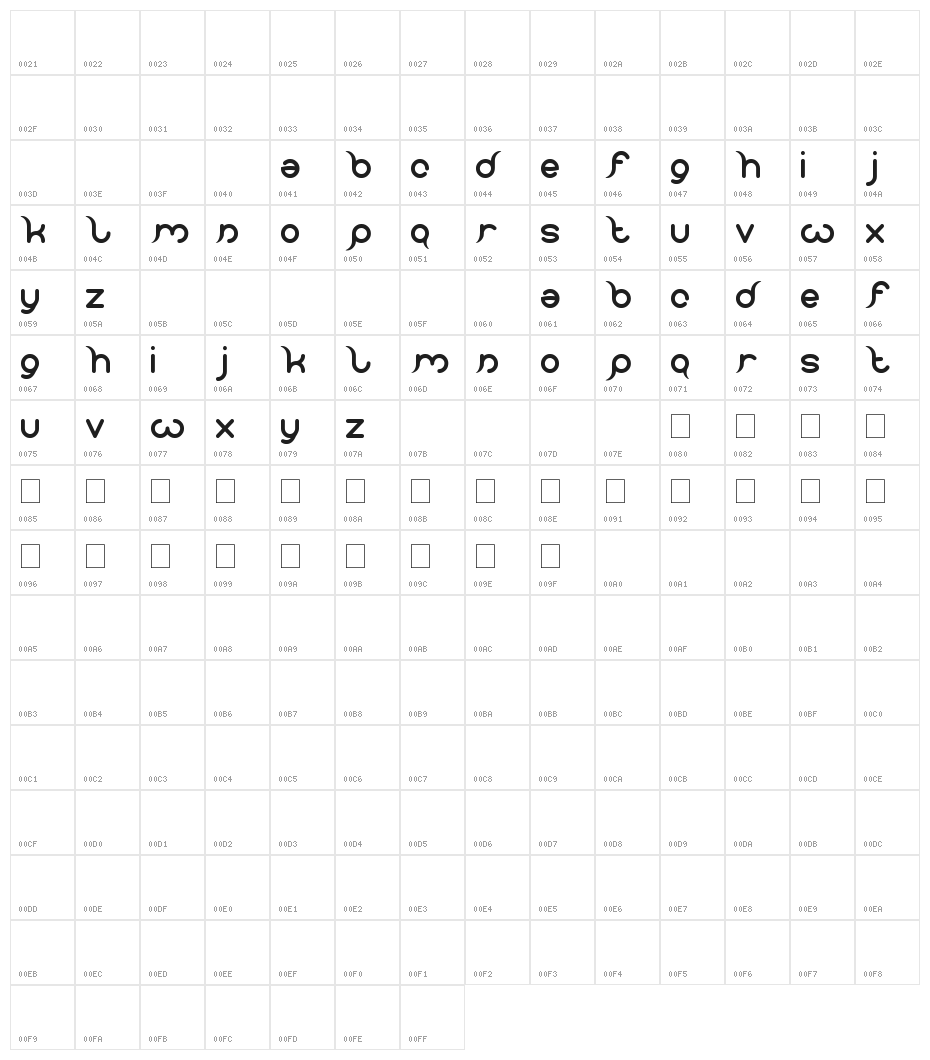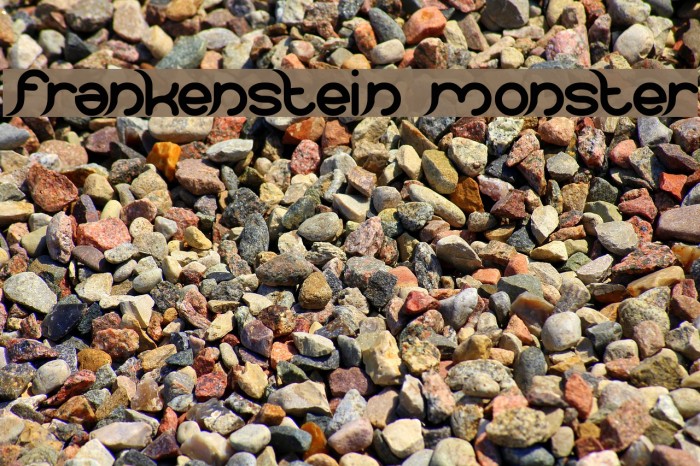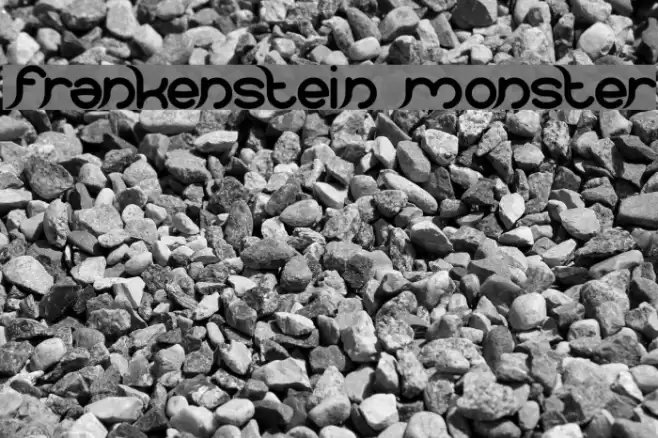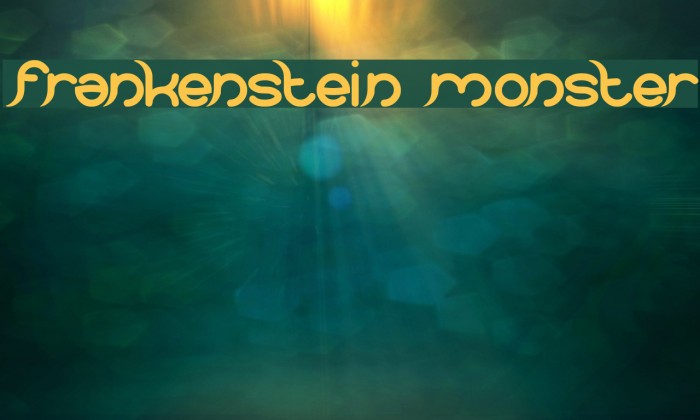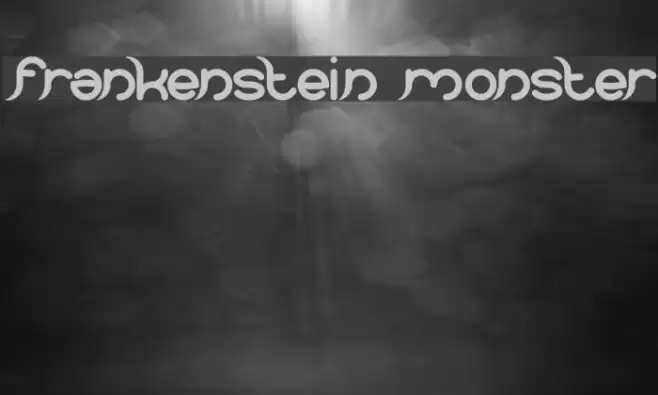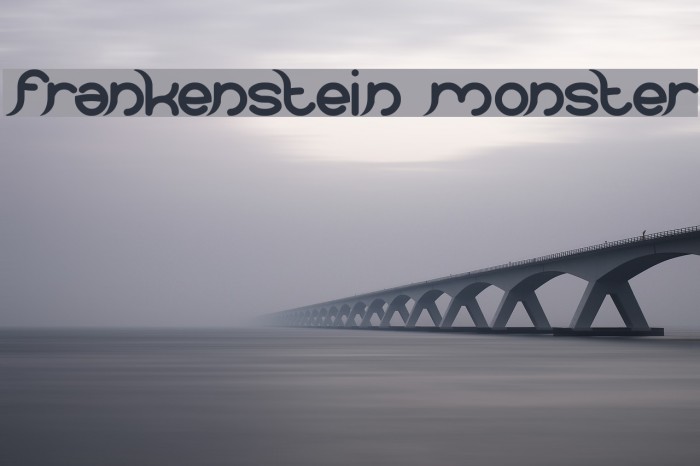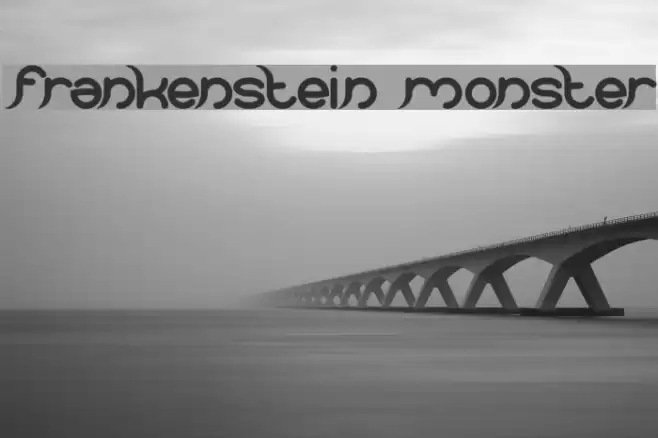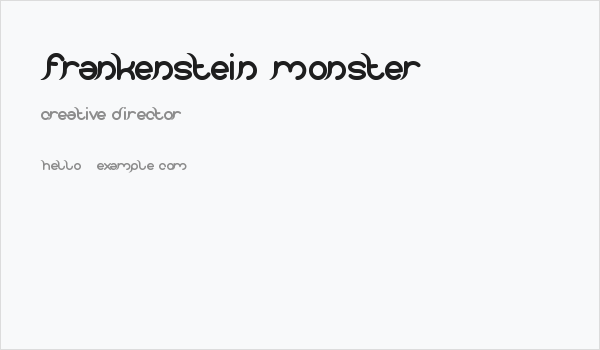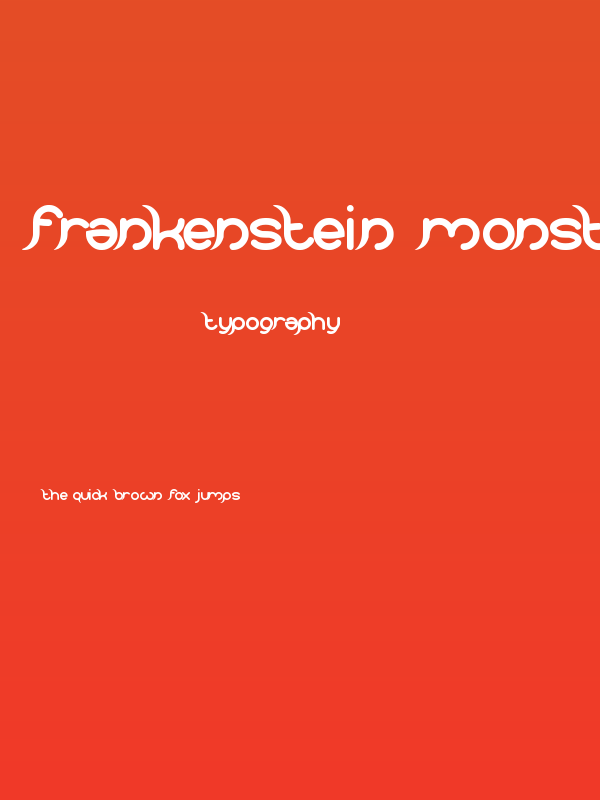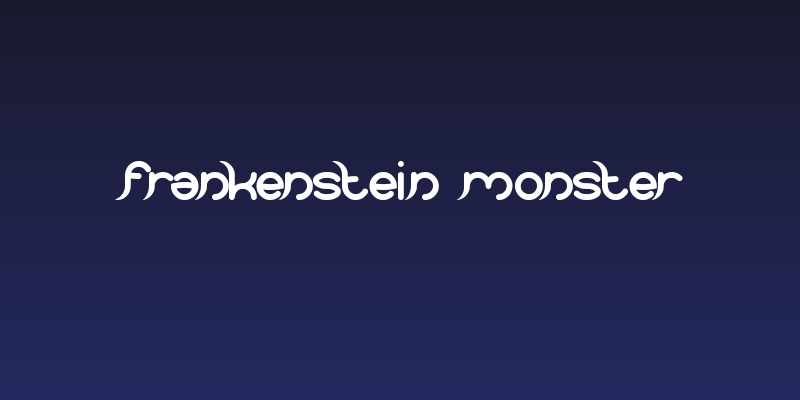
frankenstein monster Font
frankenstein monster Description
This font features a unique and playful design with a modern twist. The characters are rounded and bold, with distinctive curves and hooks that give it a whimsical and slightly futuristic appearance. The strokes are consistent in thickness, providing a uniform look across all characters. The lowercase letters have a quirky charm, with some characters featuring extended tails or loops that add to the font's playful nature. The overall style is eye-catching and suitable for creative projects that require a fun and engaging typeface.
| Overall Style | Modern, Playful |
| Proposed Projects | Ideal for children's books, playful branding, creative posters, and modern digital designs. |